All of us want to create our design projects that are not only perfect, but also clean and have an aesthetic look. So this eater encouraged us to create a fonts collection that is really vibrant and looks aesthetically pleasing.
Gerova
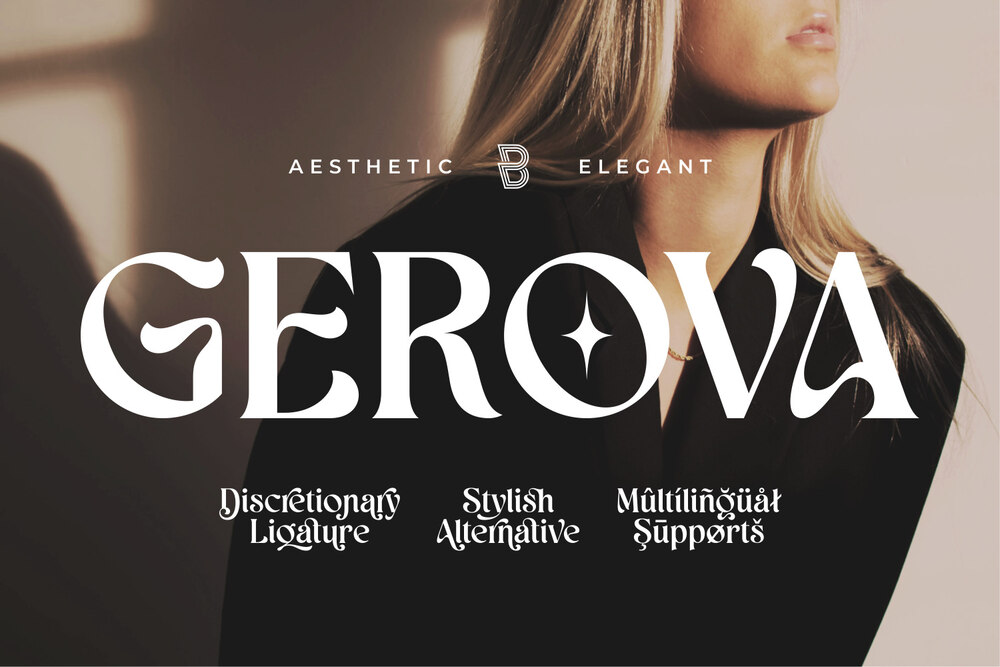
It is a serif display font that is aesthetically pleasing and has beautiful curves. Perfect for completing a variety of projects, such as logo designs, identities, product labels, fashion, magazines and more.
Blinds Audience
It is aesthetic serif font with modern look. Perfectly to be applied to the other various typography forms such as magazines, books, greeting cards, packaging, fashion and etc.
Rome Magito
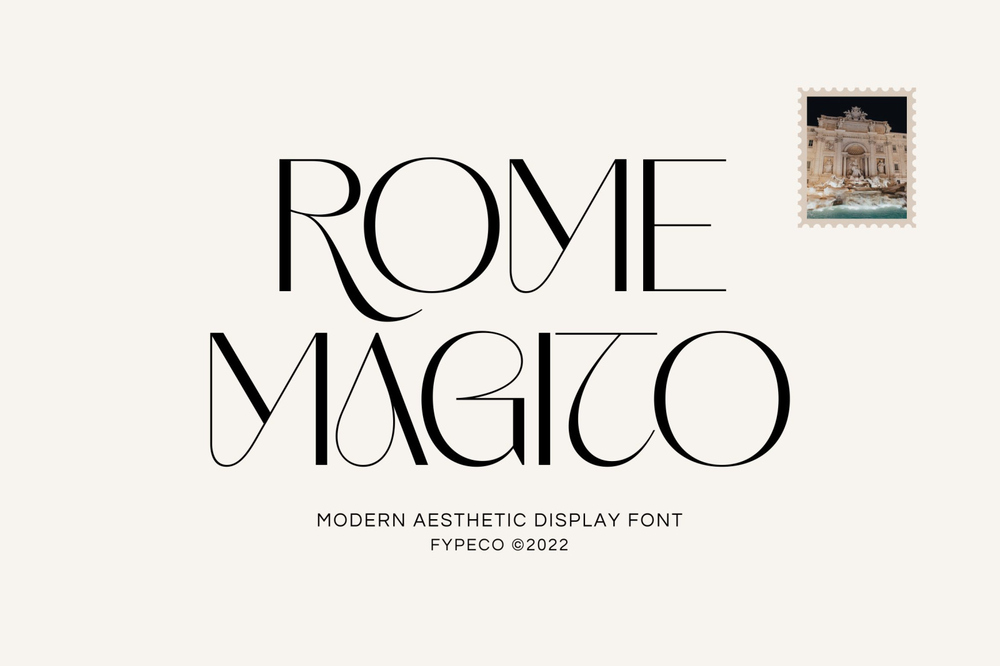
It is aesthetic and modern display font with alternatives and ligatures. Perfect for who needing a touch of elegancy, stylish and classy.
Fragile
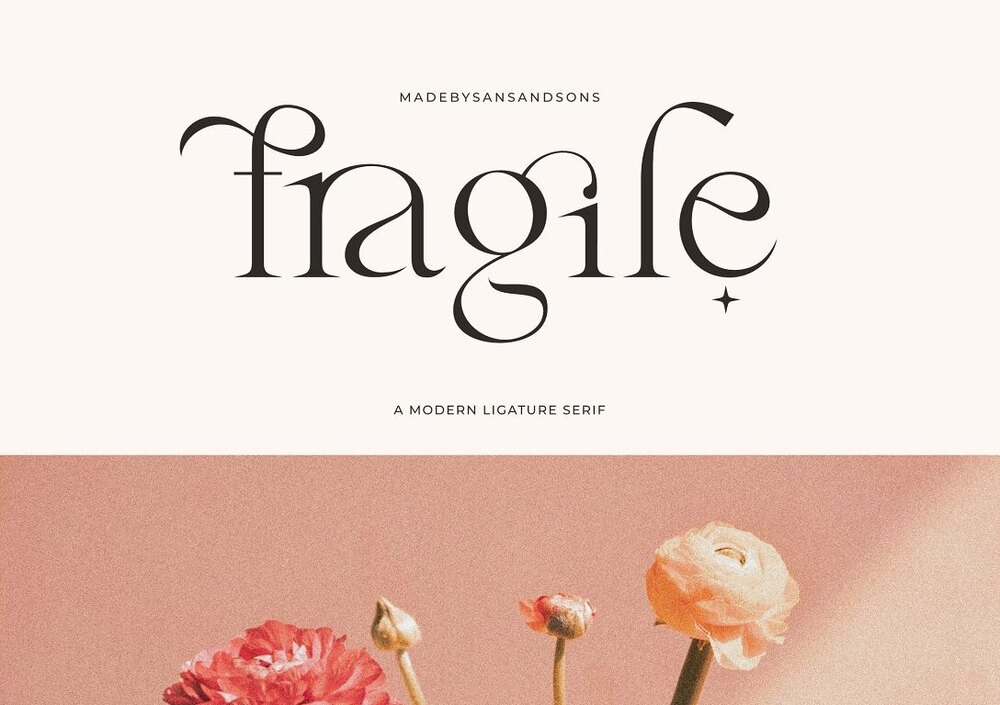
A trully modern ligature serif font so good going for your designs such as branding, logos, invitations, masterheads and more.
Kingfoil
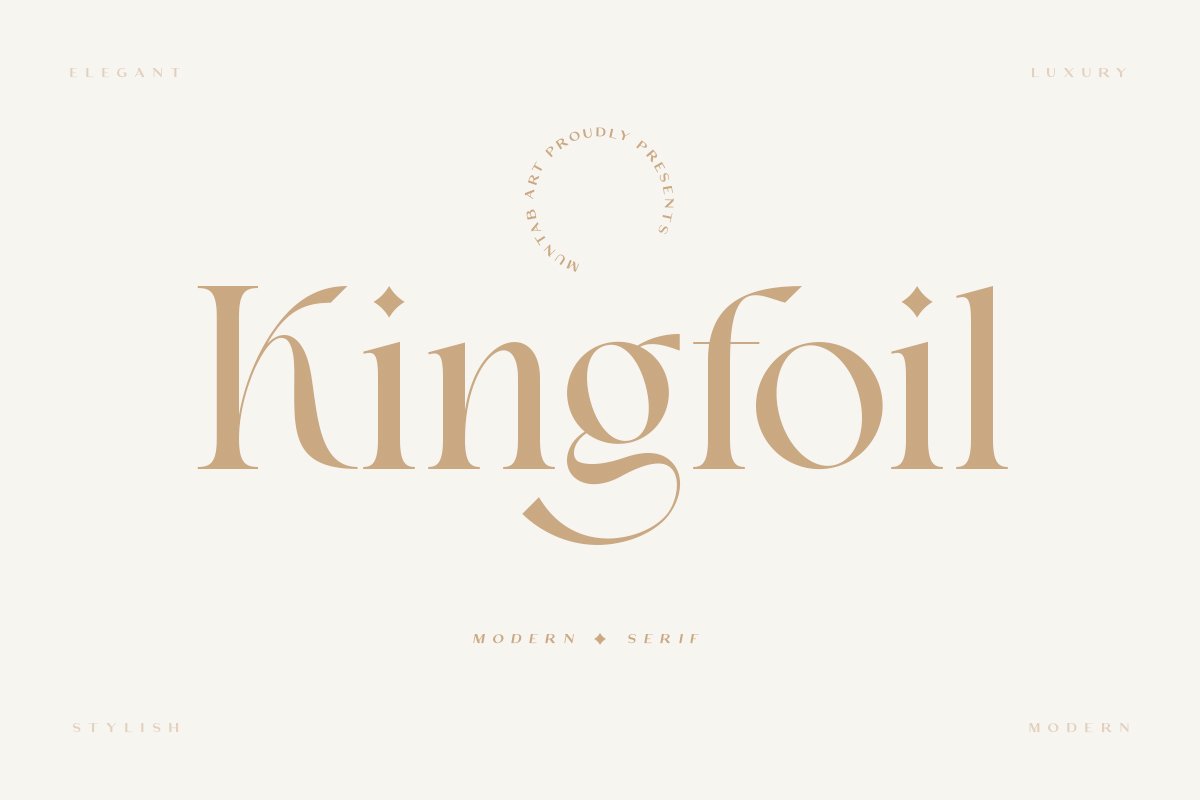
This font includes uppercase letters, lowercase letters, numerals, a large range of punctuation. Ideal for posters, web design, branding, illustrations, badges and some other works.
Aesthetic Essential
A modern and asthetic serif font in a feminine style. Perfect for yourdesigns such as web design, branding, logos, invitations, magazines, and more.
Coral Lovers / Free
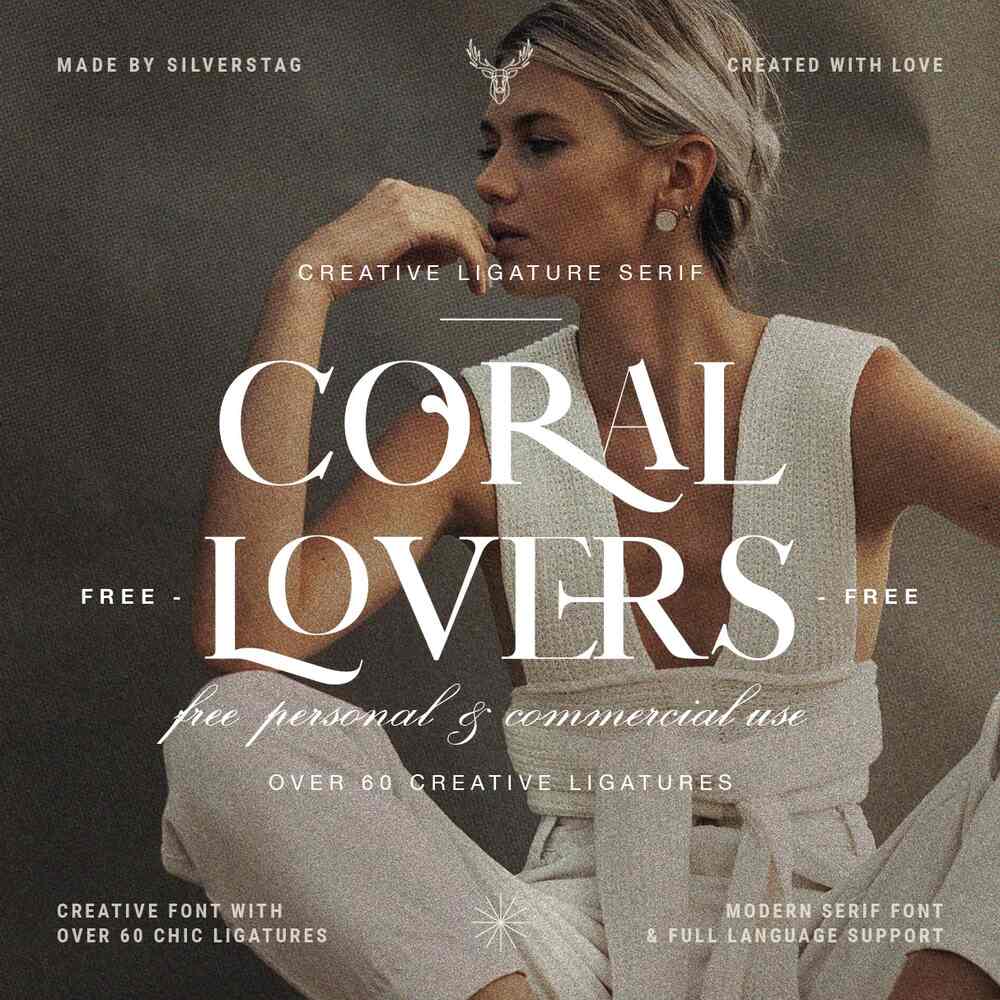
It is a free beautiful aesthetic serif font that so good going for your designs such as branding, invitations, and editorial layouts.
Roxie Rossa / Free
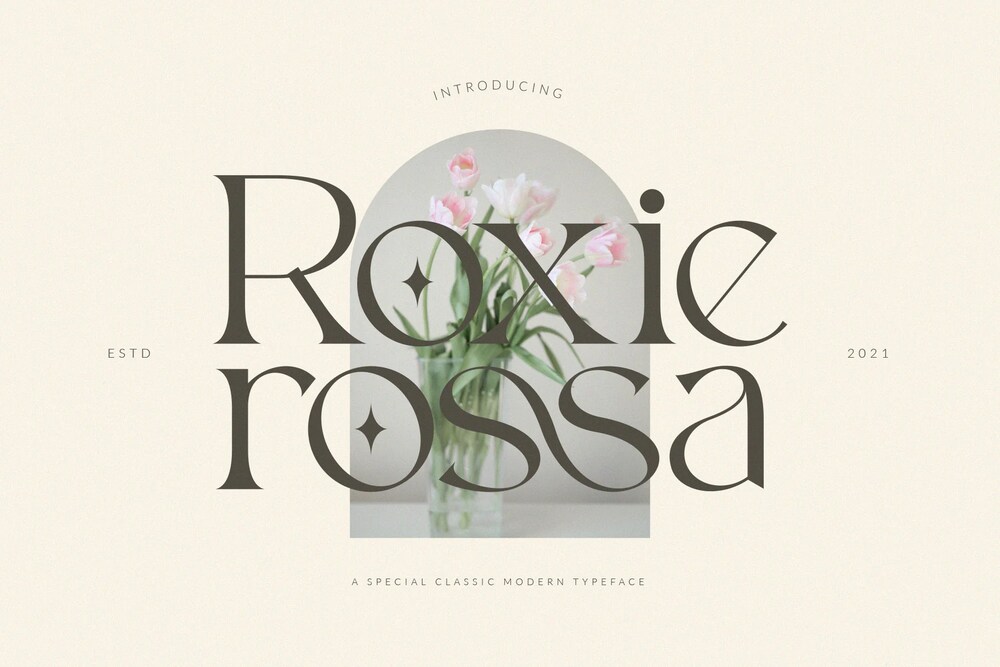
It is a free modern and elegant font that’s perfect for logos, editorial designs, social media content, product packaging and much more.
Roses Bolero / Free
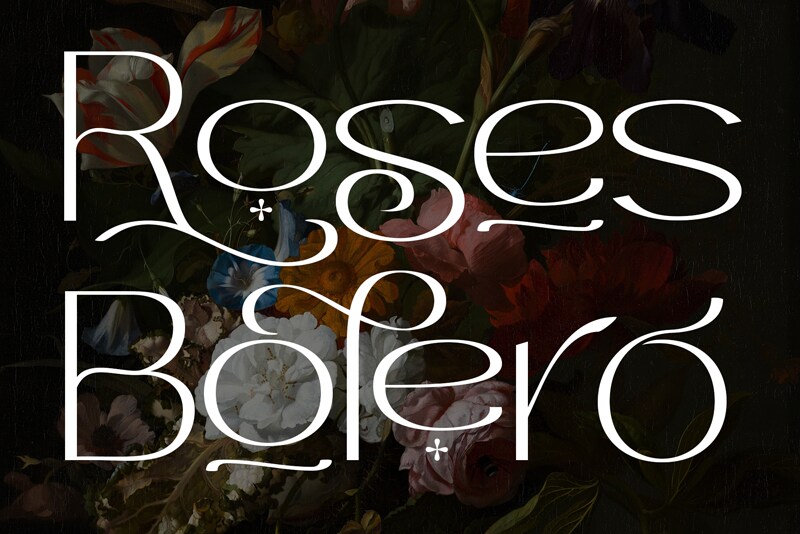
It is a free elegant sans-serif font that combines clean lines with aesthetic flourishes. Ideal for poster design, magazines and branding. Free for personal use only.
Restora / Free
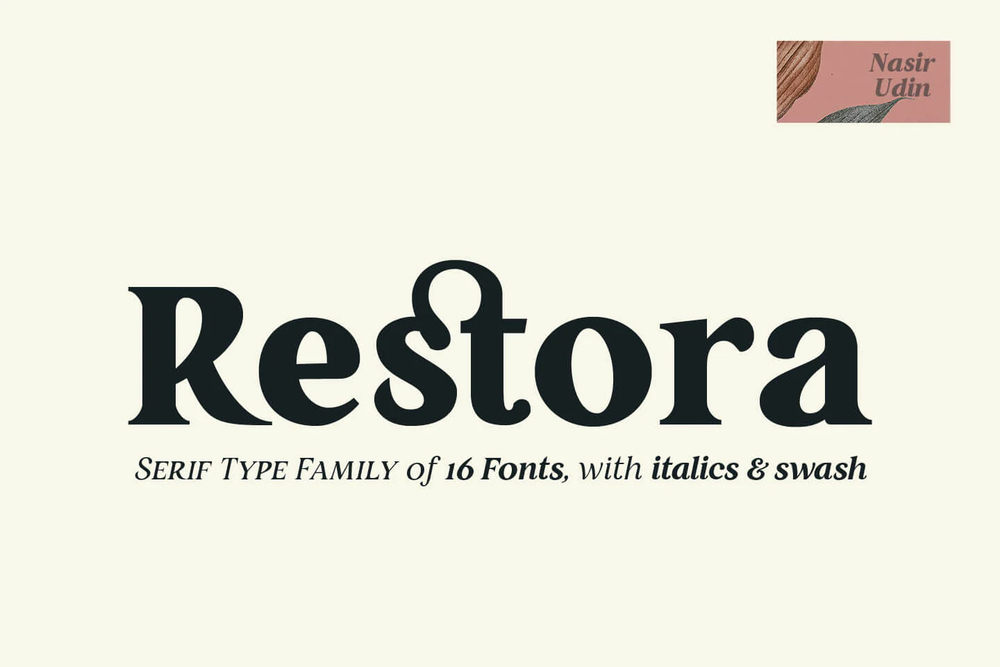
It is another awesome free font you can use to create pleasing titles and headings for various types of designs.
Beckan / Free
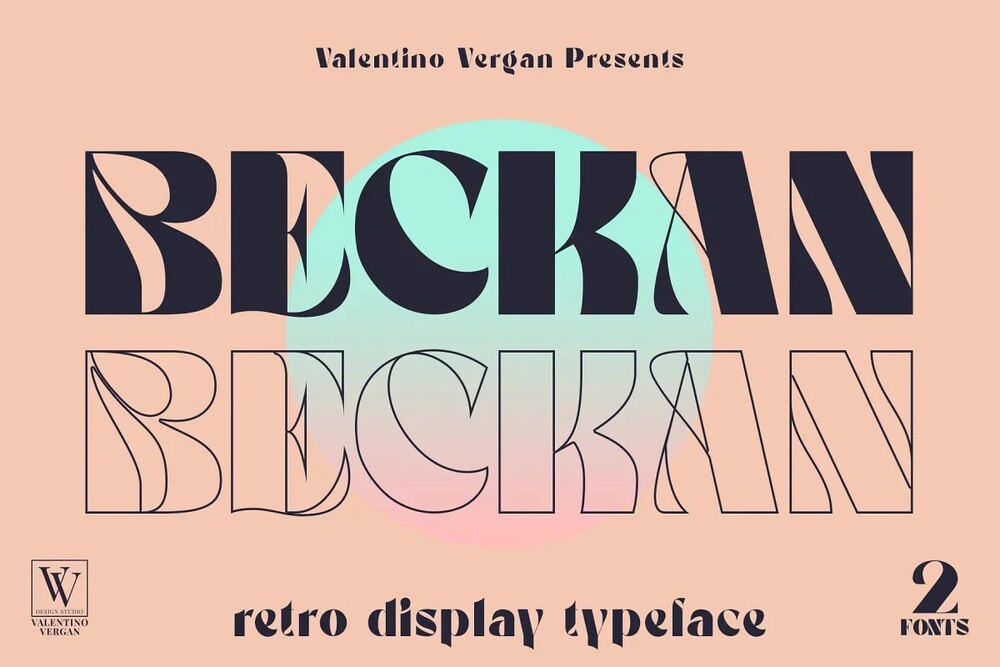
It is a retro inspired typeface, which goes towards the Art Nouveau style. Ideal for display designs.
Gimela
It is modern display font with alternatives and ligatures. The unique style also make for a stunning logos, quotes, blog posts. branding projects, magazine imagery and etc.
Blossom Noir
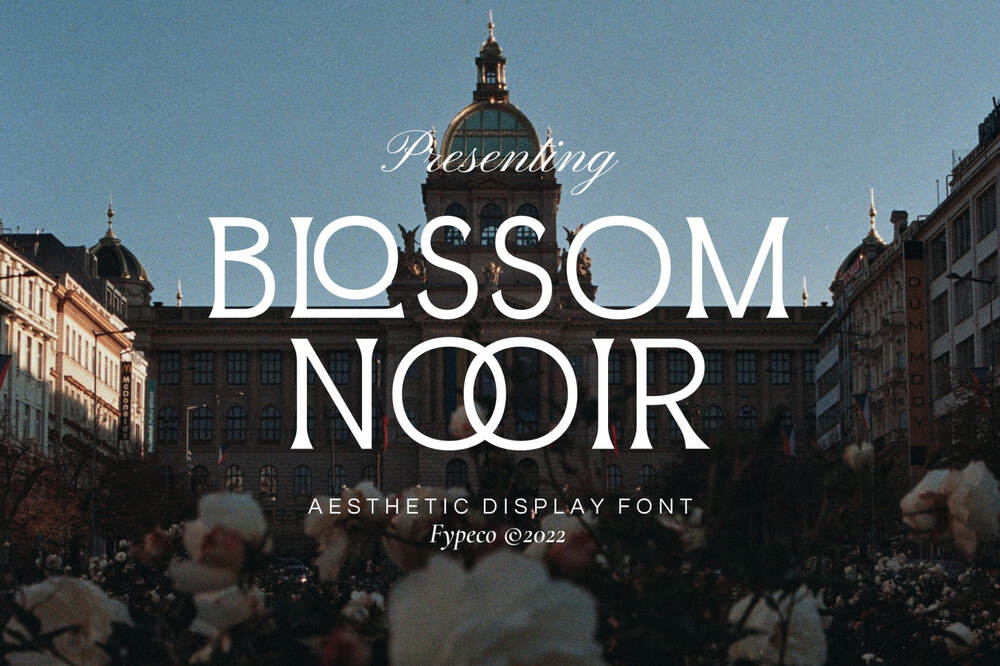
It is aesthetic display font with ligatures. Perfect for a stunning logos, quotes, invitations, blog posts, packaging and etc.
Diore Bonneg
It is a aesthetic display font with modern, simple, clean, and minimalist look. Specially designed for minimalist-themed projects.
Ronds Mokode
It is aesthetic and modern display font with alternatives and ligatures. Perfect for a stunning logos, quotes, invitations, blog posts, branding projects and etc.
Neo Qiltas
These fonts include uppercase letters, numerals, a large range of punctuation. Serif font with retro style. Created for posters, web design, branding, illustrations, badges, and some other works.
Modern Aesthetic
This font offers amazing typographic harmony for a diversity of design projects, including logos and branding, social media posts, advertisements and etc.
Kugile
It is an classy serif font Inspired by luxury and elegant characters. So good going for designs such as logos and branding, packaging, display, posters and etc.
Belgan Aesthetic
A serif display font that has a classic, feminine, and elegant style wrapped with a beautiful alternate stylist. Ideal for various projects.
Leky Calgria
It is elegant serif font with beautiful and luxury touch good for gorgeous wedding invitations, beautiful stationary art, eye-catching social media posts, logos and etc.
Saloums
It is a collection of modern, feminine, beautiful and classy characters, giving you a unique look for any branding or design need.